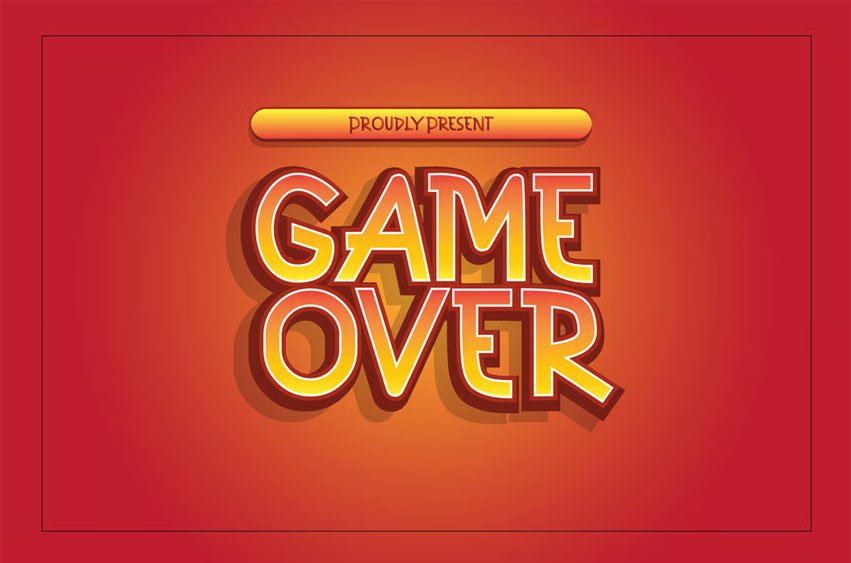
Cube Gaming Font is a Modern Sans Serif Font Suitable for any graphic designs such as branding materials, t-shirt, print, business cards, logo, poster, t-shirt, photography, quotes, coffee shop, etc.